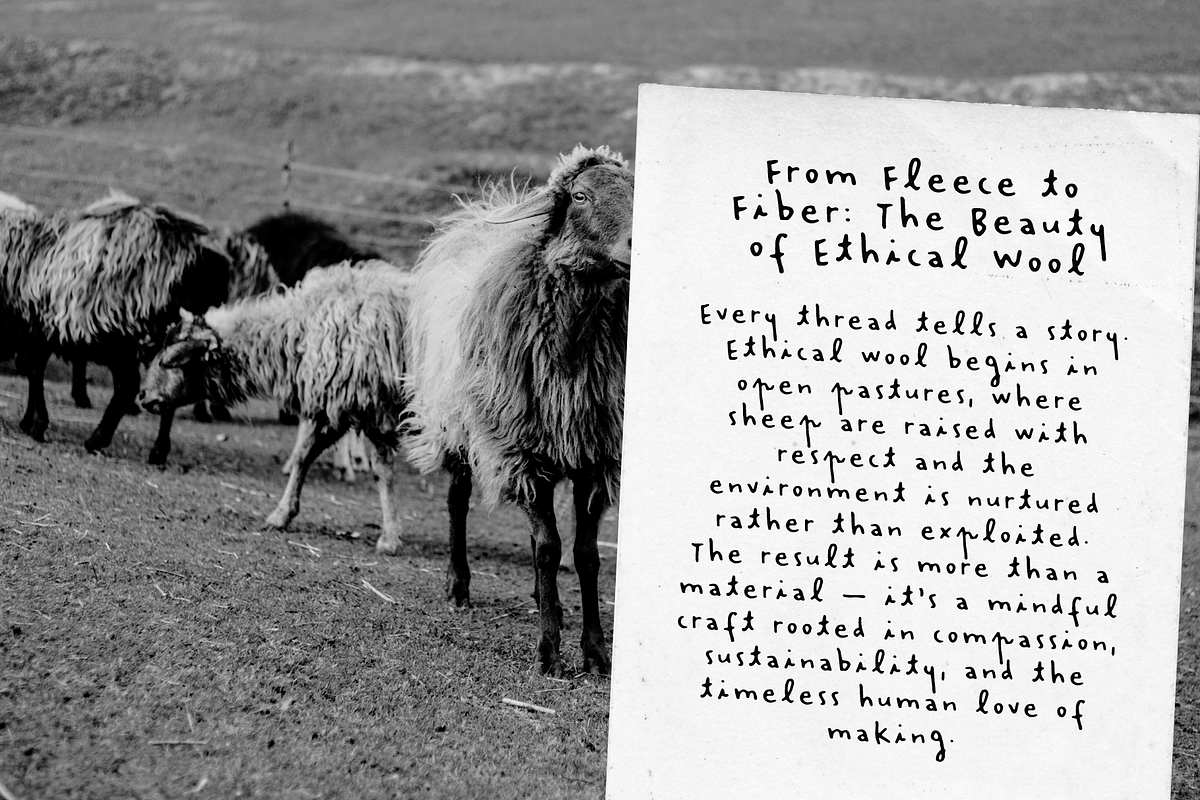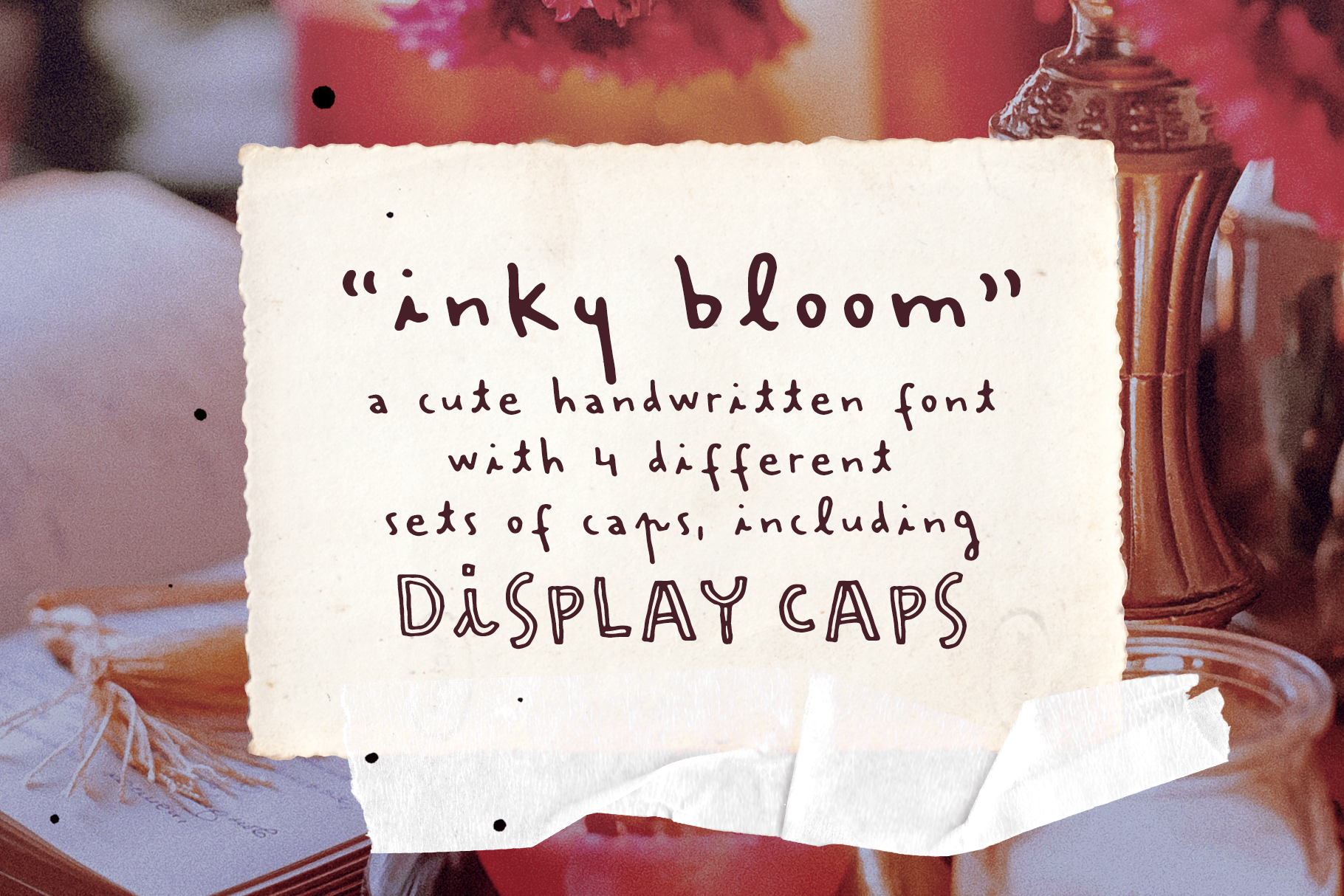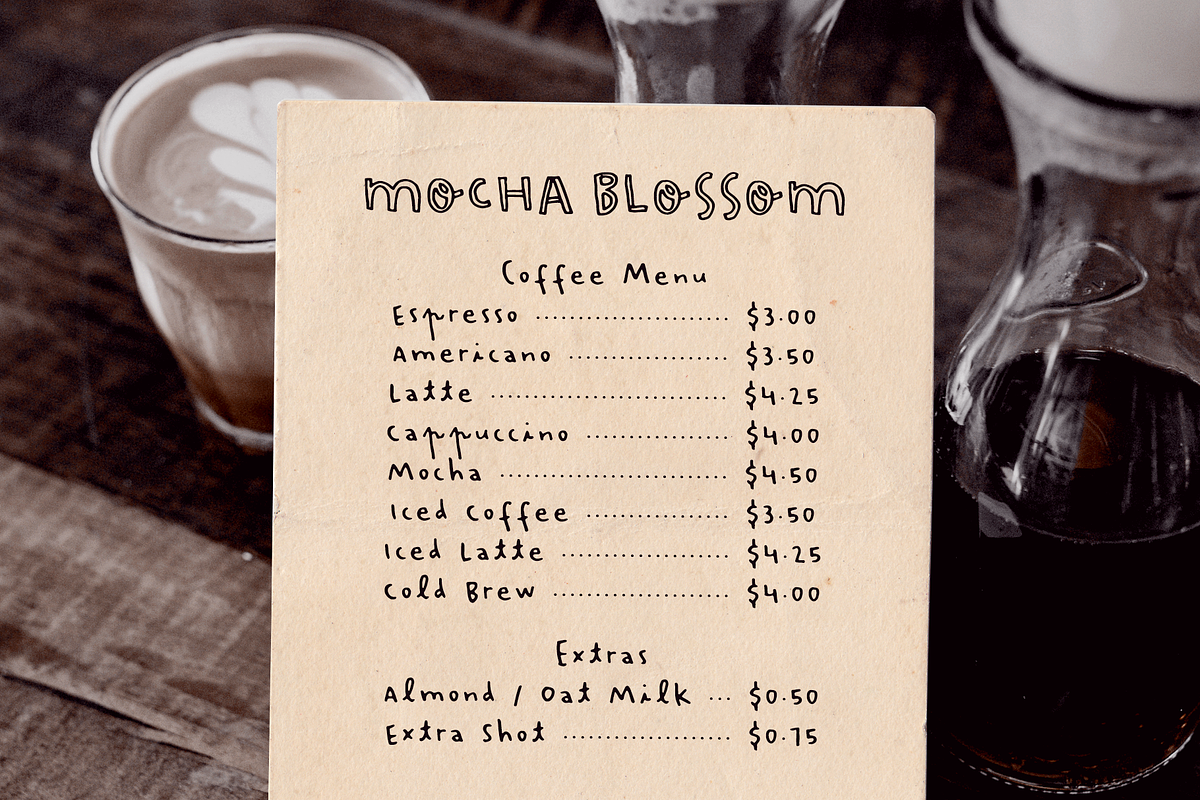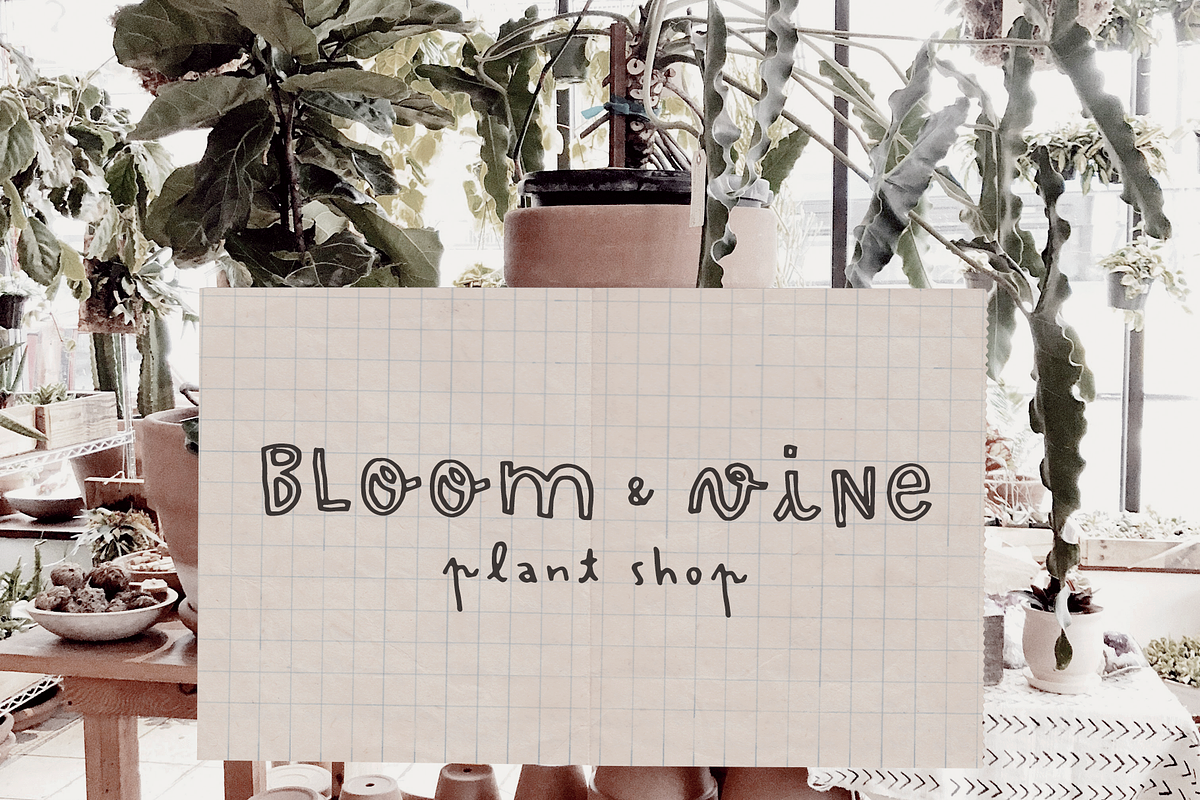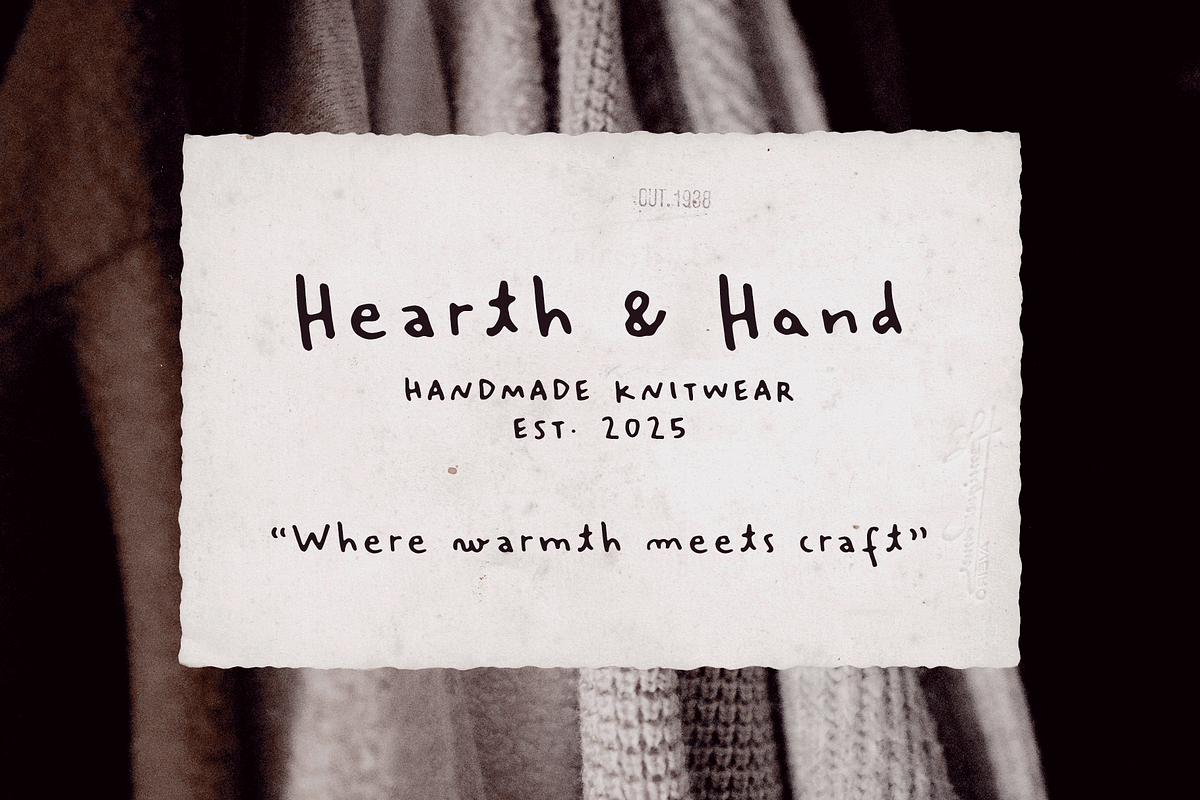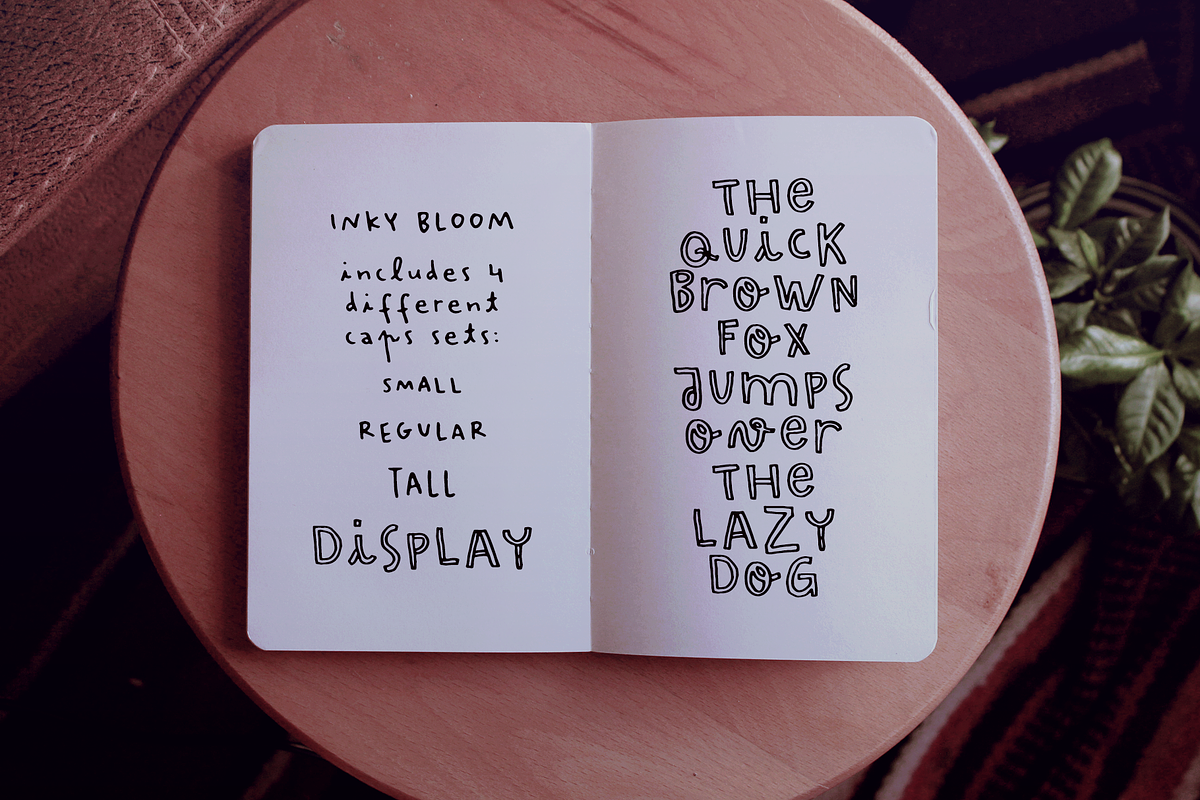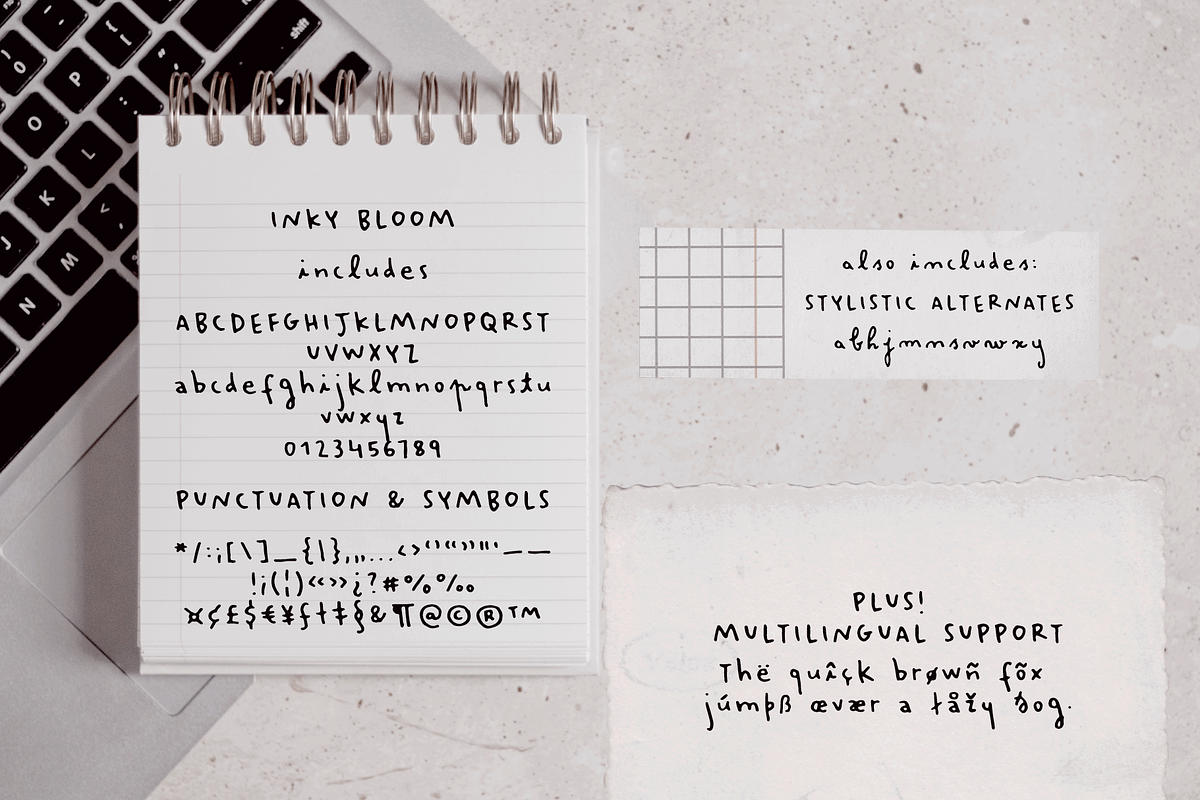
Inky Bloom Handwritten Font
Bring playful warmth and polished charm to your designs with Inky Bloom, a cute handcrafted marker-style typeface.
Inky Bloom includes:
- 4 different sets of caps: Regular, Small (caps at the height of the lower case letters), Tall and Display (a bold hand drawn font, perfect for impactful designs)
- stylistic alternates, perfect to create a true handmade feel
Use Inky Bloom across a variety of creative projects, especially where you want handwriting personality:
- Branding & logos
- Social media graphics & quotes
- Packaging, labels & product tags
- Posters, flyers & editorial headings
- Stationery, invitation & greeting card design
Add a playful handmade touch to your next project with Inky Bloom.